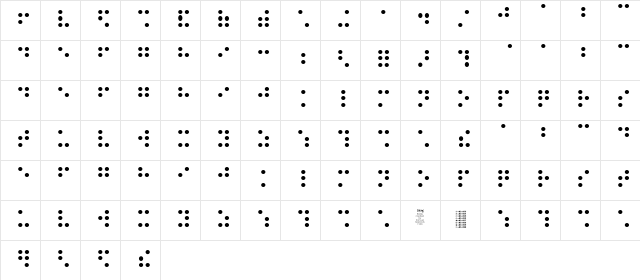
Balkan Peninsula Braille Regular
Design Context for Balkan Peninsula Braille Typeface
Balkan Peninsula Braille offers clean, dependable letterforms without strong stylistic allegiance, making it a practical choice for designers who need flexibility.